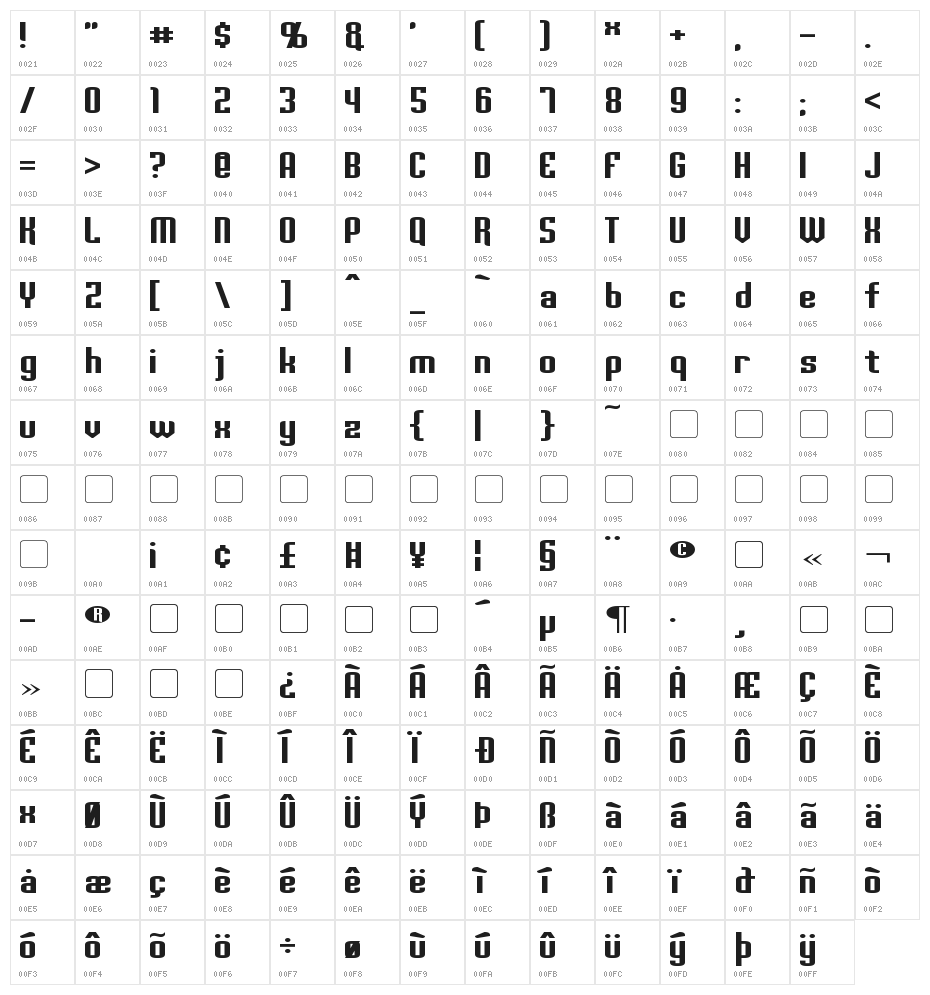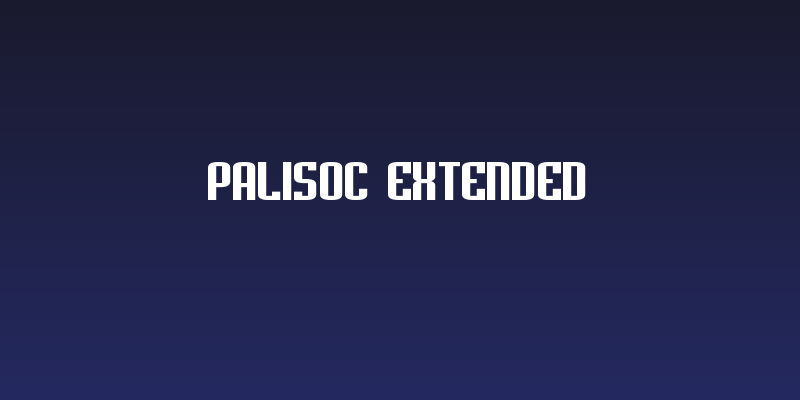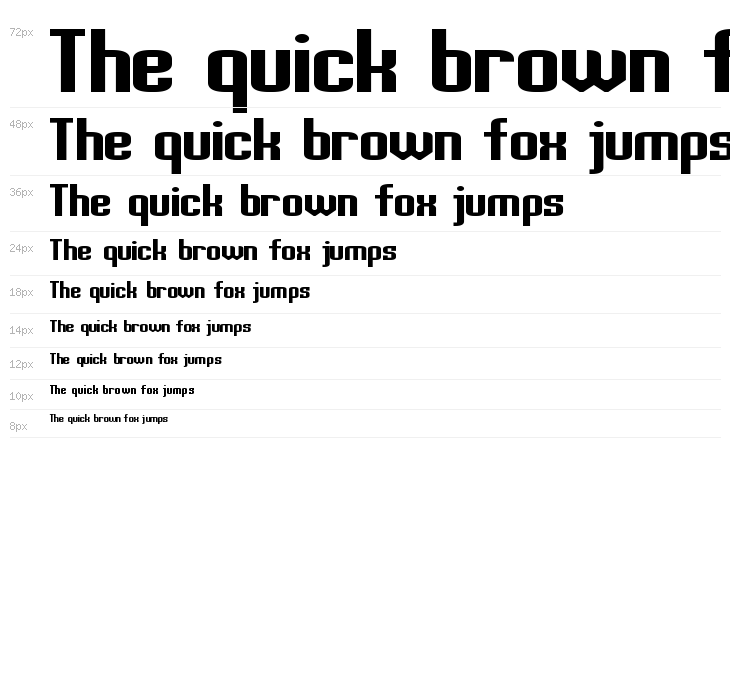
Palisoc Extended Font
Palisoc Extended Description
This font features a bold and extended style with a modern, geometric appearance. The characters are uniformly thick, giving it a strong presence. The uppercase letters are tall and commanding, while the lowercase letters maintain a consistent height, enhancing readability. The numbers are distinct and clear, matching the boldness of the alphabet. Special characters are well-defined, making them suitable for various applications. The overall design is clean and structured, ideal for making a statement.